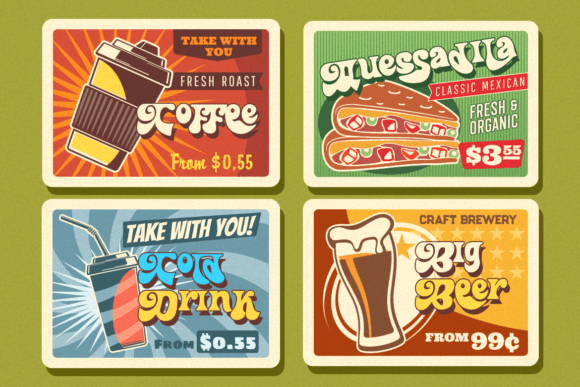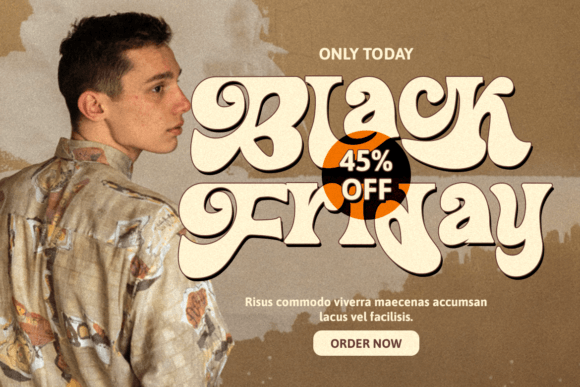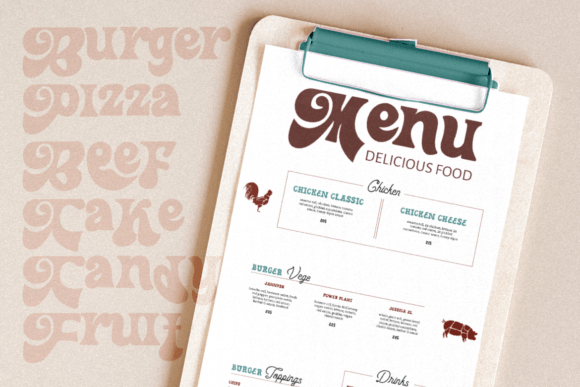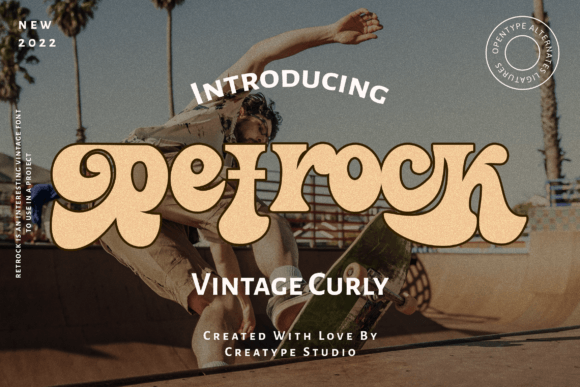
Introduction to Retrock Font
Retrock is an irregular retro display typeface that has groovy vibes.
Its curvy and spread tails make it suitable for many retro branding projects as well Retrock is perfect for branding projects, logos, wedding designs, social media posts, advertisements, product packaging, product designs, labels, watermarks, stationery, or anything that requires a groovy, stylish look.